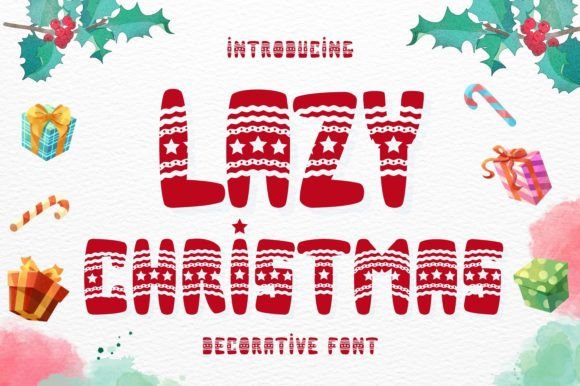
Feel the joy of Christmas with Lazy Christmas Font, a whimsical display typeface that captures the spirit of the season with every letter. Designed by Brown Cupple Fonts, this font is a delightful fusion of playfulness and authenticity, making it the ideal choice for adding a touch of holiday cheer to your creative projects.
Visualize the smiles on your loved ones' faces as they receive invitations adorned with the charming characters of Lazy Christmas Font. Its unique style is perfect for crafting personalized greetings, evoking the warmth and happiness of the festive season. Embrace the magic of Christmas through this font's ability to transform ordinary words into enchanting messages.
Step into a realm of creative possibilities with Lazy Christmas Font. Its versatility knows no bounds, making it a perfect companion for blog posts, logos, branding, ads, and more. Let your imagination soar as you explore the endless design opportunities that await. Create eye-catching headlines that demand attention, craft logos that exude holiday charm, and develop branding that radiates the joy of Christmas.
Envision the beauty of greeting cards adorned with Lazy Christmas Font's festive characters. Each card becomes a cherished keepsake, conveying heartfelt messages of love and joy. The font's whimsical style adds a personal touch, making every card a unique expression of your affection.
Picture your planners and photo albums adorned with the festive flair of Lazy Christmas Font. Transform them into cherished mementos, capturing the memories of the season with a touch of whimsy and charm. Each entry, each photograph, becomes a delightful reminder of the magic of Christmas.
Explore the world of decorations and find new ways to incorporate the festive spirit into your surroundings. Lazy Christmas Font brings a touch of cheer to any space, whether it's on Christmas cards, gift tags, or festive banners. Unleash your creativity and let the font guide you in creating a truly enchanting atmosphere.